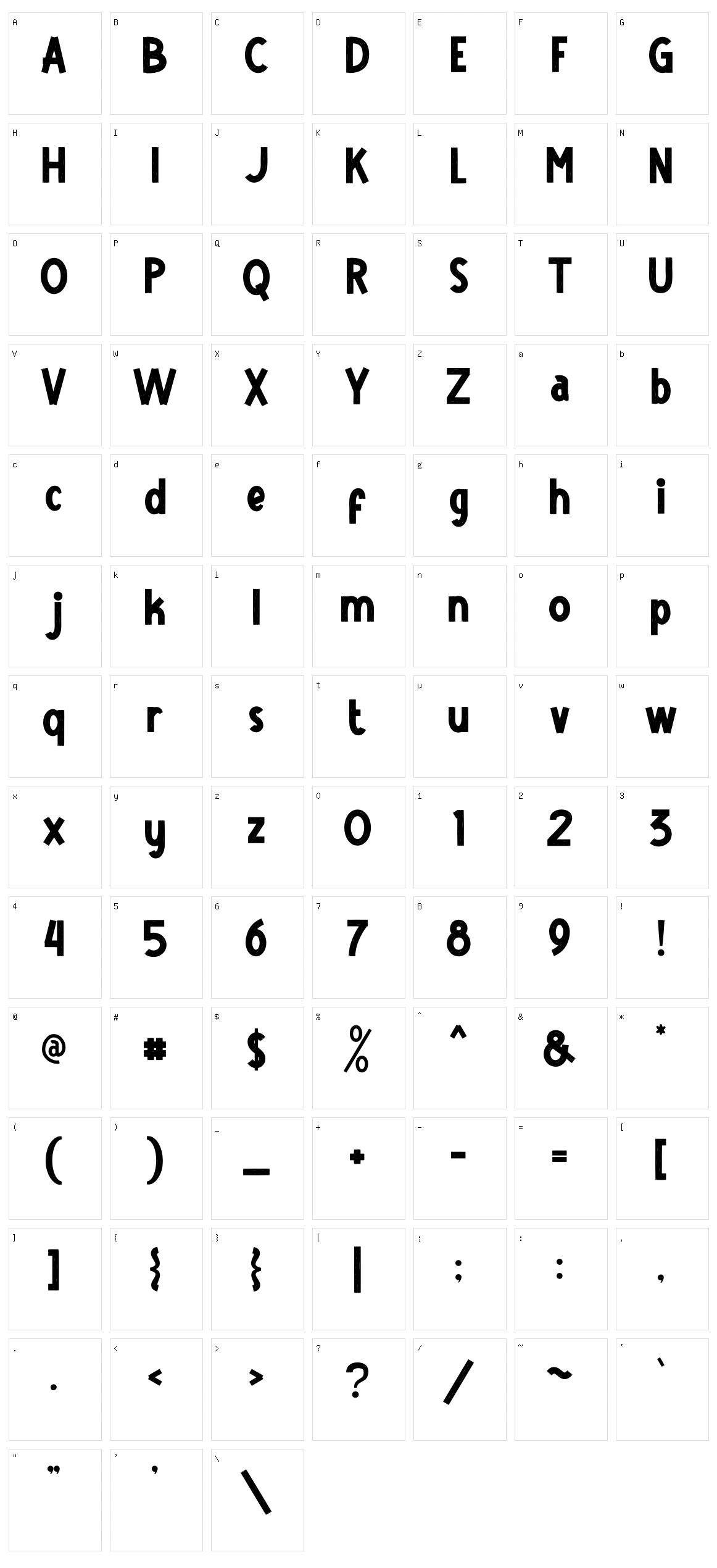
The free font Puny is carefully designed by Display Studio, showcasing a thoughtful balance of creativity and usability and falls under the Cartoon font style. When you download the ZIP file, it contains only 267.58 KB of font files, making it lightweight and quick to download. Please review the license details below to understand permitted usage and distribution rights. If license information is not available, we recommend using this font for personal projects only or contacting the author directly for commercial usage permissions.